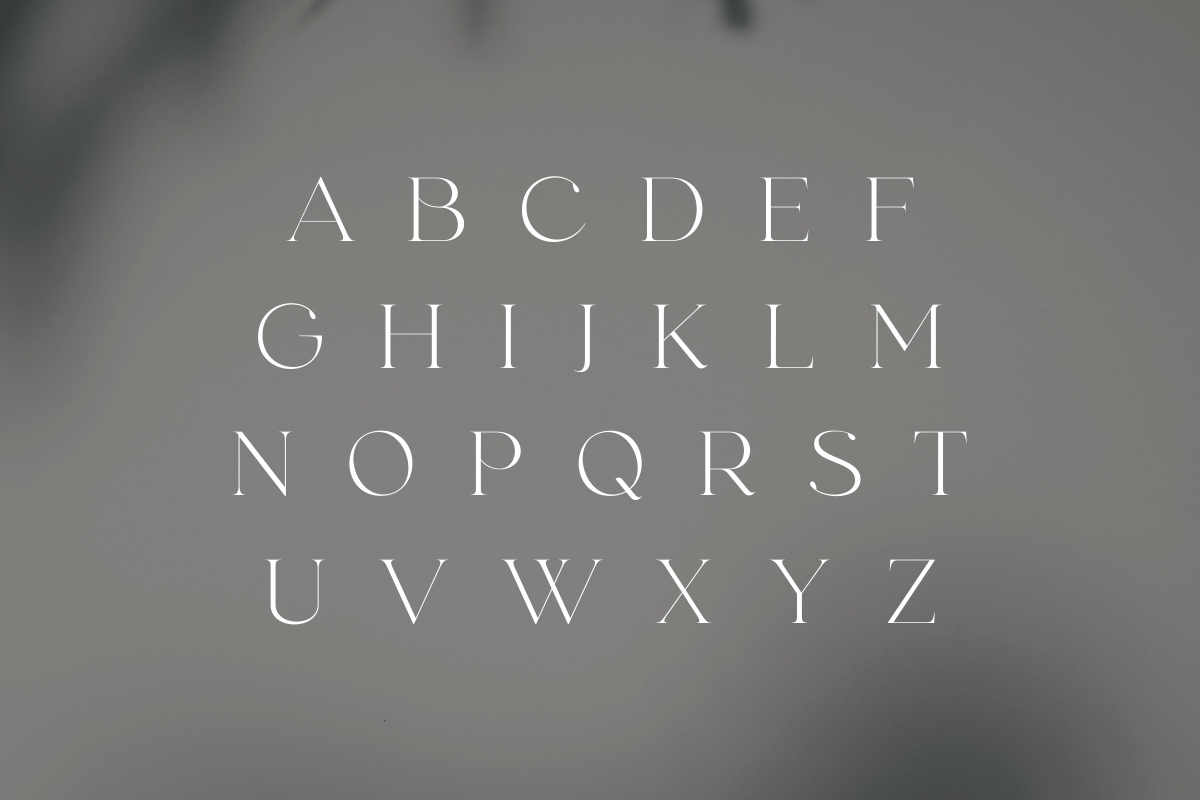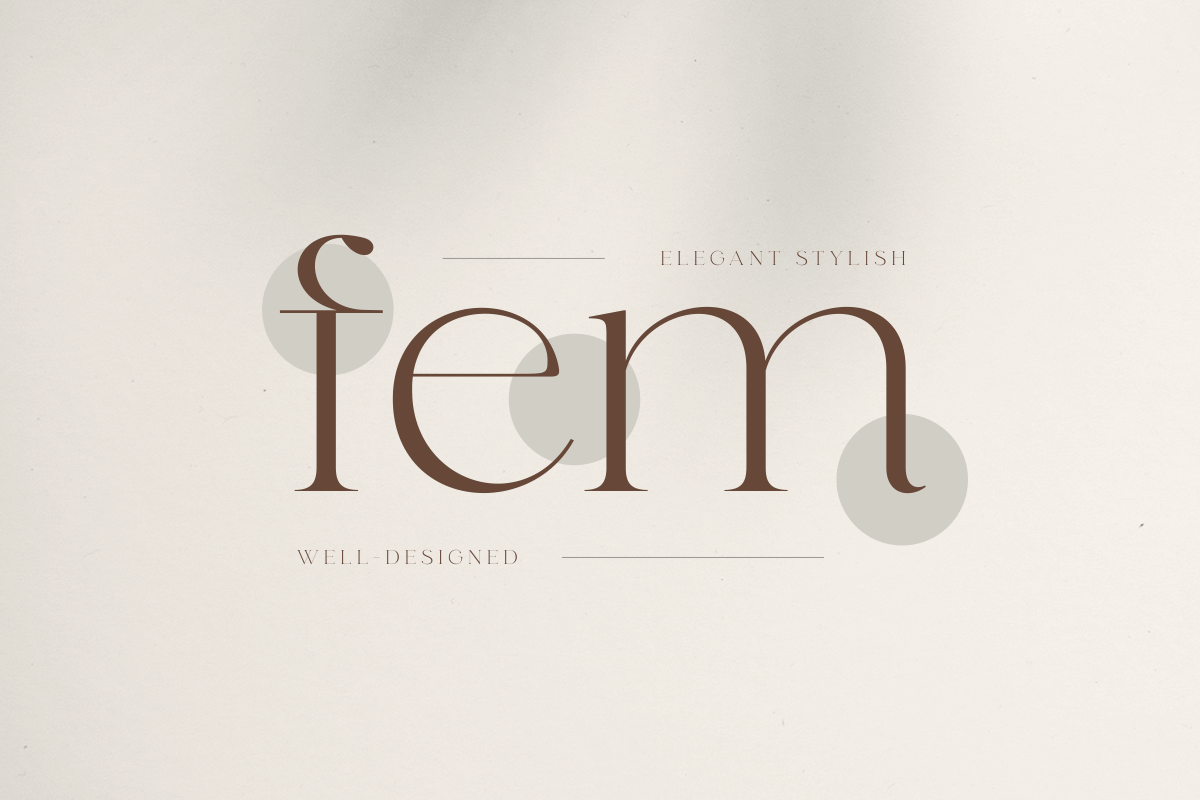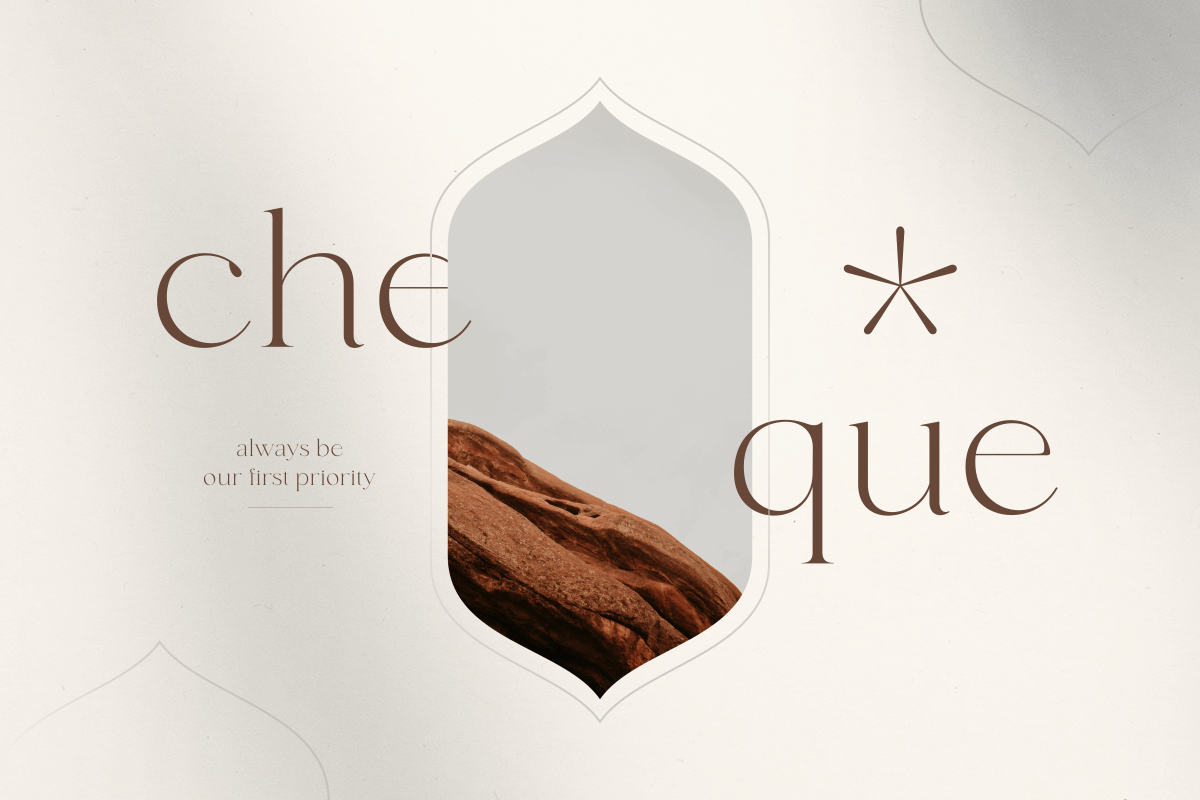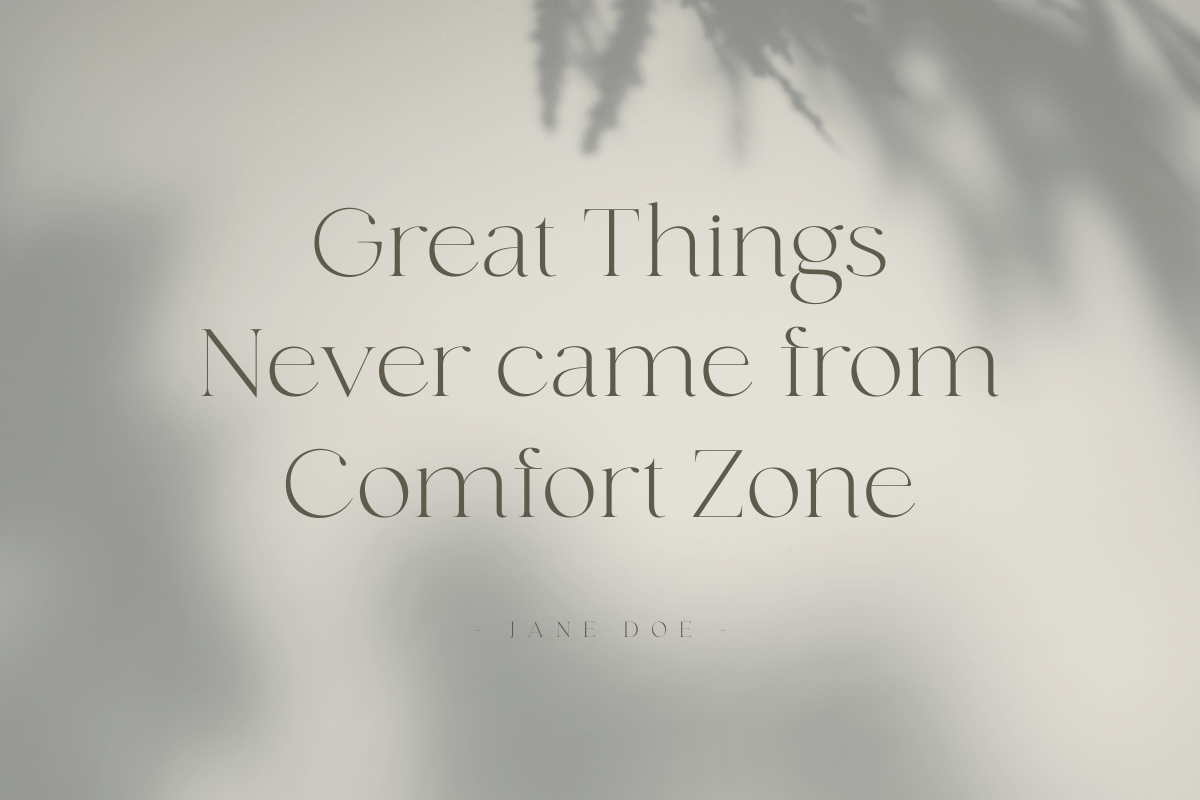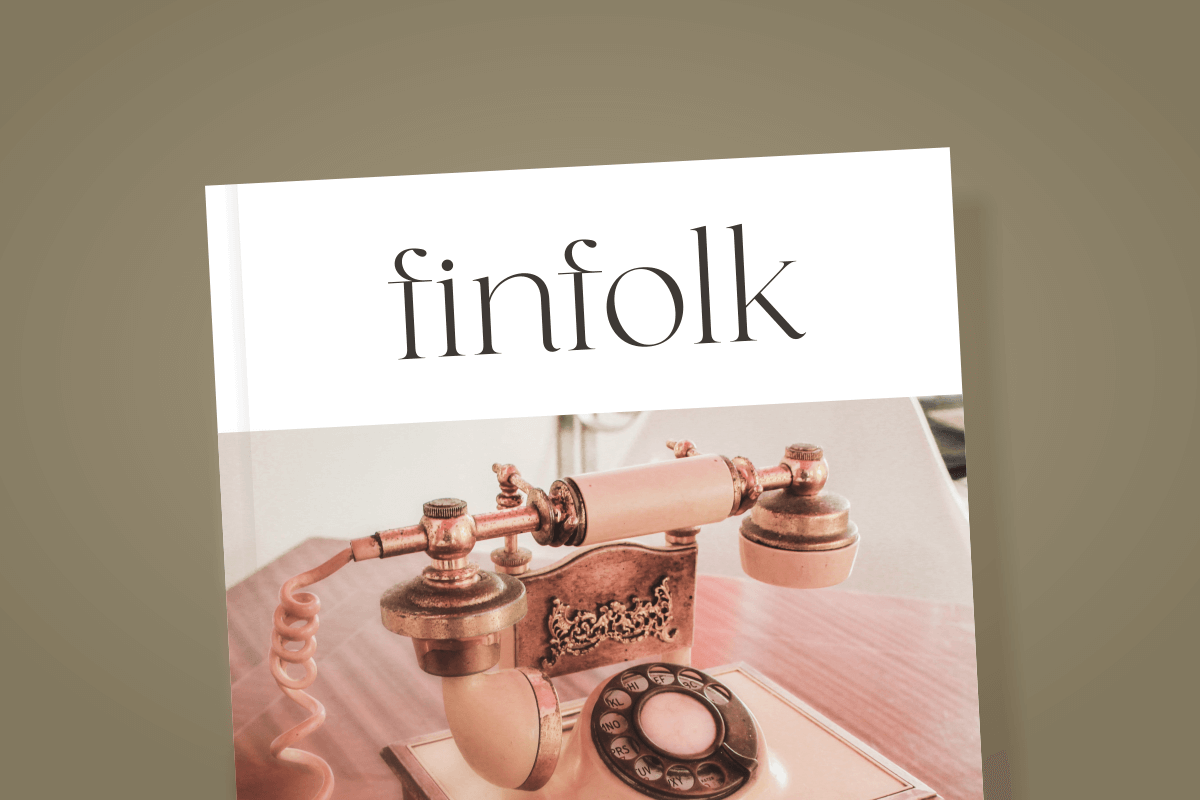
Fonde is an elegant chique font for brand, logo and quotes design. Based on our experience as a graphic designer who works for a lot of companies, we often are requested to design a logo in a unique style but with an elegant shape.
So, we try to brainstorming and create this font to make the idea is going out. This is perfect for BRANDING and LOGO DESIGN. You will get classy, elegant, and certainly unique logos with this font.